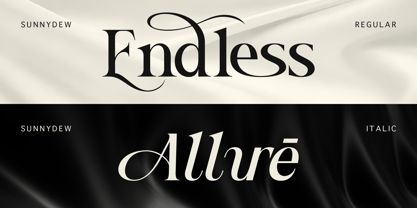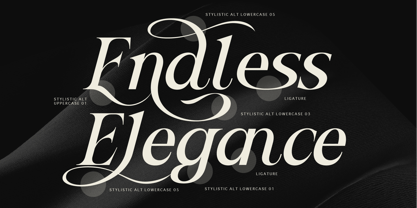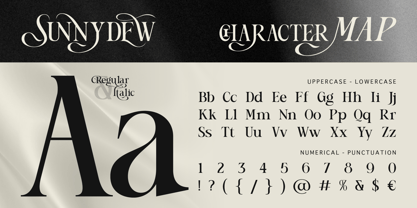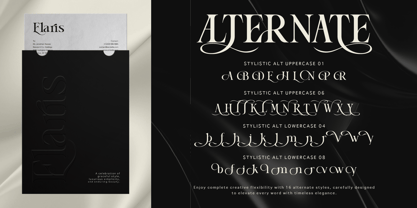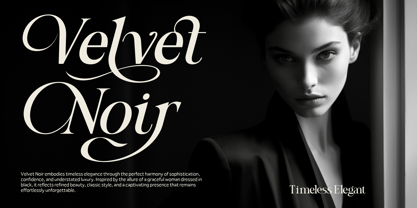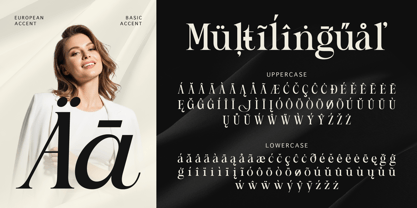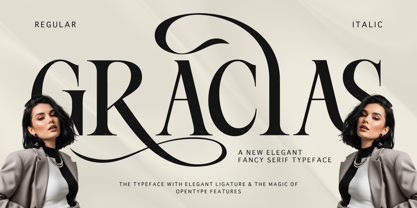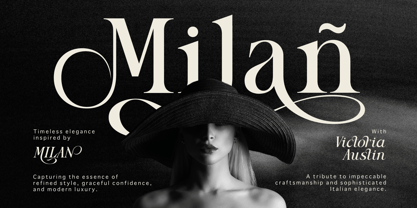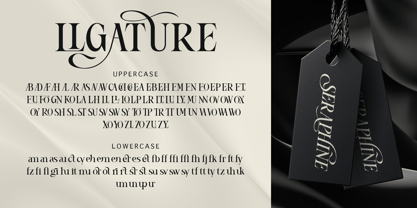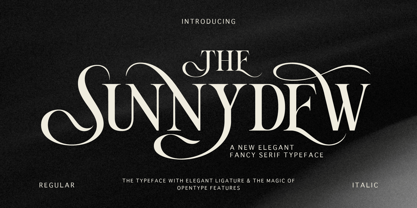
Sunnydew
von Burntilldead
Die Schriftfamilie Sunnydew wurde von Eric Kurniawan entworfen und von Burntilldead veröffentlicht. Sunnydew enthält 2 Stile und Familienpaketoptionen. Mehr über diese Familie
Introducing Sunnydew, a new elegant fancy serif typeface designed to bring timeless sophistication to your creative projects. With its graceful curves, refined contrast, and decorative flourishes, Sunnydew captures a luxurious editorial feel perfect for high-end branding.
This typeface comes complete with Regular and Italic styles, elegant ligatures, and the magic of stylistic alternate, giving you effortless control over swashes and alternate characters for a truly custom look. Every letterform is crafted with balance and elegance in mind, making Sunnydew ideal for logos, wedding invitations, fashion branding, magazine headlines, packaging, and social media designs.
Whether you're building a luxury brand identity or designing a romantic editorial layout, Sunnydew delivers a sophisticated, feminine, and fancy serif aesthetic that stands out. Full uppercase, lowercase, numerals, and punctuation are included, ready to elevate any design project.
Features: A - Z set (Uppercase & Lowercase), Number, Punctuation, Alternates, Ligatures, Multilingual
Designer: Eric Kurniawan
Foundry: Burntilldead